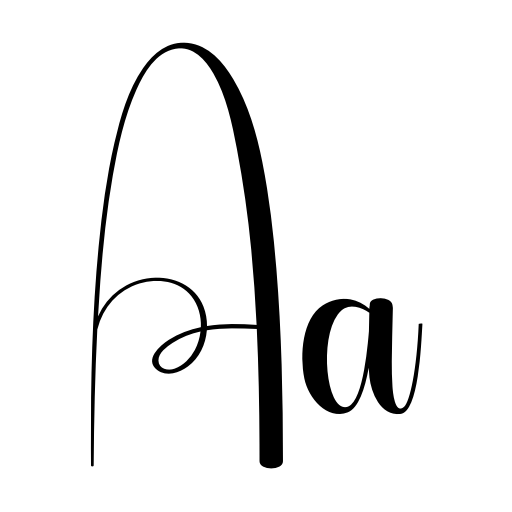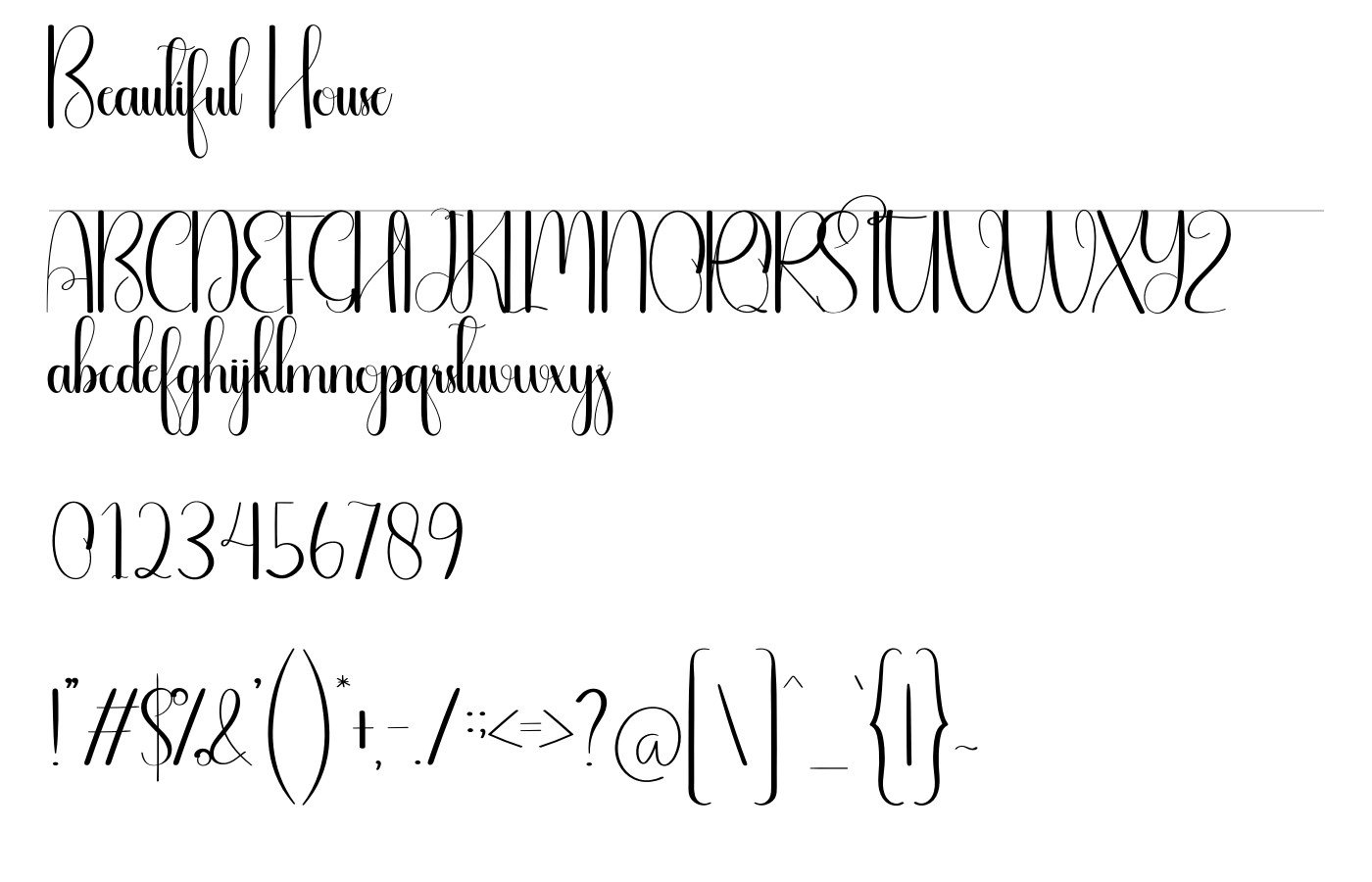
Beautiful House is an elegant, tall, and slender script font with delicate, flowing lines and charming swashes that add a sophisticated, artistic touch. Its high contrast and graceful curves evoke a refined, luxury feel, making it perfect for stylish branding, wedding invitations, and upscale editorial designs where a romantic and whimsical atmosphere is desired.
Beautiful House Font
About Beautiful House Font